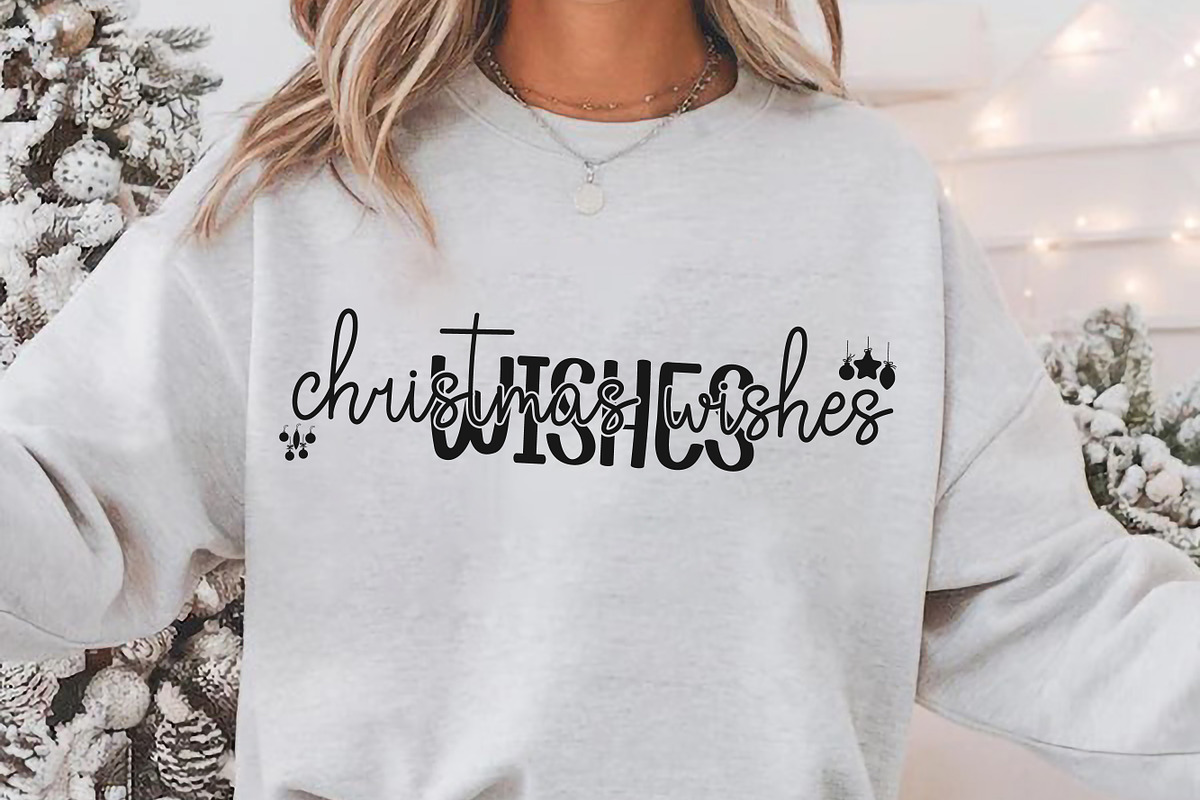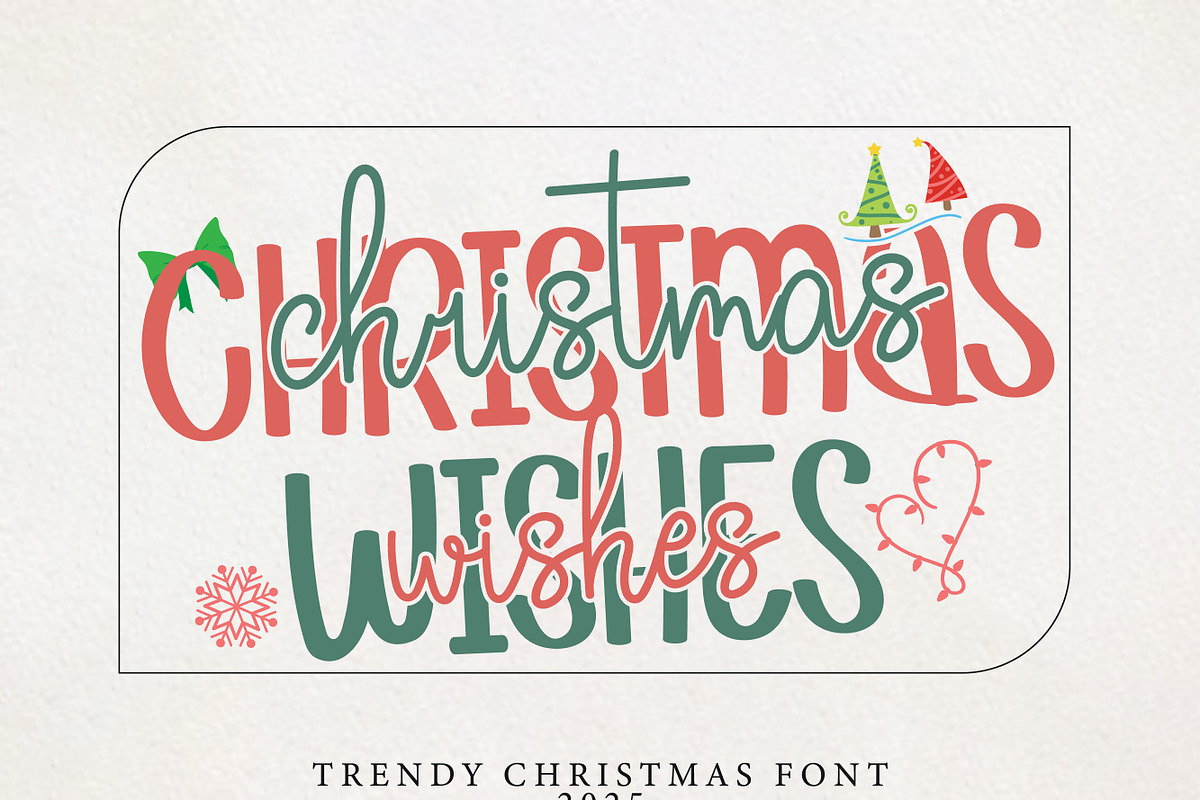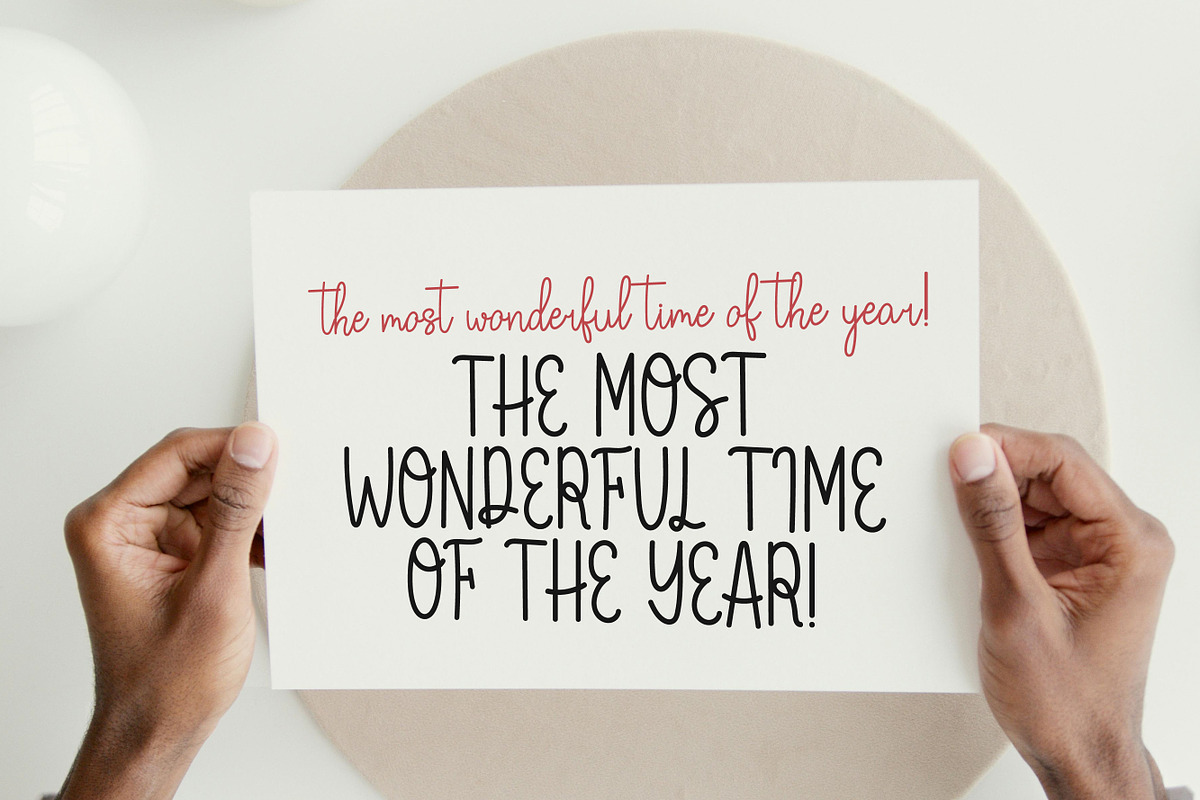
Christmas Wishes
Christmas Wishes font is a softness and elegance. Trio font (sans serif and script) suitable for guarantee a romantic touch to each of your creations! It will add elegance and class to any of your design projects.